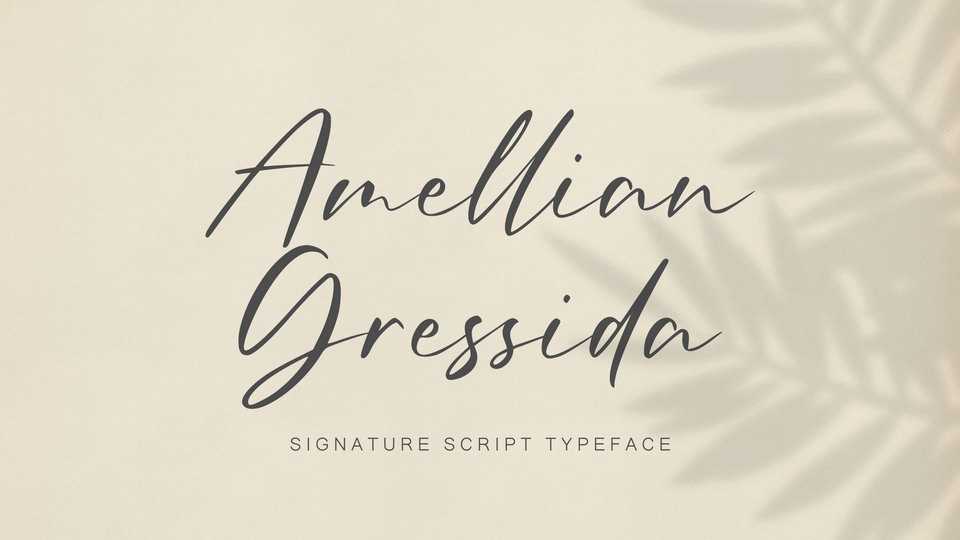
Download Amellian Gressida font, a modern signature typeface. Amellian Gressida has a natural & modern handwritten style for any purpose: logotype, branding, media and more.
Designer: Sibelumpagi Studio